2026 design trends are no longer driven by aesthetics alone. They emerge from the intersection of technology, psychology, and human behavior. As digital spaces grow more competitive, brands are expected to create experiences that feel intuitive, immersive, and emotionally engaging rather than simply visually appealing.
Research even shows that a well-designed user interface can increase conversion rates by up to 400%, proving that design directly influences how people trust and interact with a brand. This article explores the most influential design trends and how they are redefining current visual communication across branding and digital experience.
Below are 11 key 2026 design trends, explained through their visual approach, practical function, and how they support modern brands in connecting with today’s users.
Artificial intelligence is becoming part of the core of graphic design trends 2026. AI-driven design creates layouts that feel flexible and adaptive, adjusting to screen size, content priority, and user behavior.
In addition, websites and apps can automatically adjust content emphasis or highlight different sections. For brands, this helps maintain consistent visuals across platforms with less manual work, while users experience smoother and more intuitive interfaces.
Visually, experimental typography often features distorted letterforms, overlapping text, and bold variable fonts that interact with images or layouts, making the content feel more expressive and memorable.
In many cases, distinctive typography can even replace complex logos, while users benefit from a clearer hierarchy and stronger visual focus when information is organized intentionally.
Nowadays, interfaces are no longer limited to flat screens, and this shift is becoming one of the most noticeable 2026 design trends. Designers increasingly create immersive experiences where users interact through movement, depth, and motion.
Visually, the immersive UI uses floating elements, layered depth, soft shadows, and subtle animation to create a sense of space. In addition, this approach makes interaction more engaging and intuitive because users experience the interface rather than simply viewing it.
Micro-interactions are the small animations users notice during interaction. Buttons respond, icons move, and transitions confirm actions, helping users understand what is happening on the screen. This makes digital products easier to use and more satisfying for users while strengthening brand experience.
In sustainable visual design, simplicity becomes a strategy. Clean layouts, optimized images, and limited motion help websites load faster and perform better across devices. Besides improving usability, this approach indicates that a brand is mindful of environmental impact and responsible digital practices.
Retro-future design brings past visual styles into modern digital spaces and has become one of the standout 2026 design trends. Bright neon colors, metallic effects, and vintage interface references are integrated into clean layouts, creating a balance between old and new.
For brands, this style builds a distinctive identity, while users experience visuals that feel playful, immersive, and memorable.
Motion-first branding focuses on how a brand moves, not just how it looks. Instead of relying only on static logos, designers create animated identities through logo motion, transitions, and micro-interactions. This helps guide user attention and makes the brand feel more dynamic and memorable.
Bold minimalism combines simplicity with strong visual focus. Designers rely on generous negative space and a limited set of elements, allowing one dominant feature, such as striking typography or a single graphic, to take center stage. The result is a clean, uncluttered layout that still commands attention.
In multi-sensory design, interaction involves more than the screen and reflects one of the emerging 2026 design trends. Small interface sounds, vibration feedback, and animated responses help users understand actions and navigation more clearly. Moreover, the experience feels more natural and immersive.
Modular branding systems help brands stay consistent in a multi-platform world. Designers develop reusable visual components that can easily adapt to different layouts and media. This approach improves efficiency for brands and provides users with a familiar and coherent visual experience.
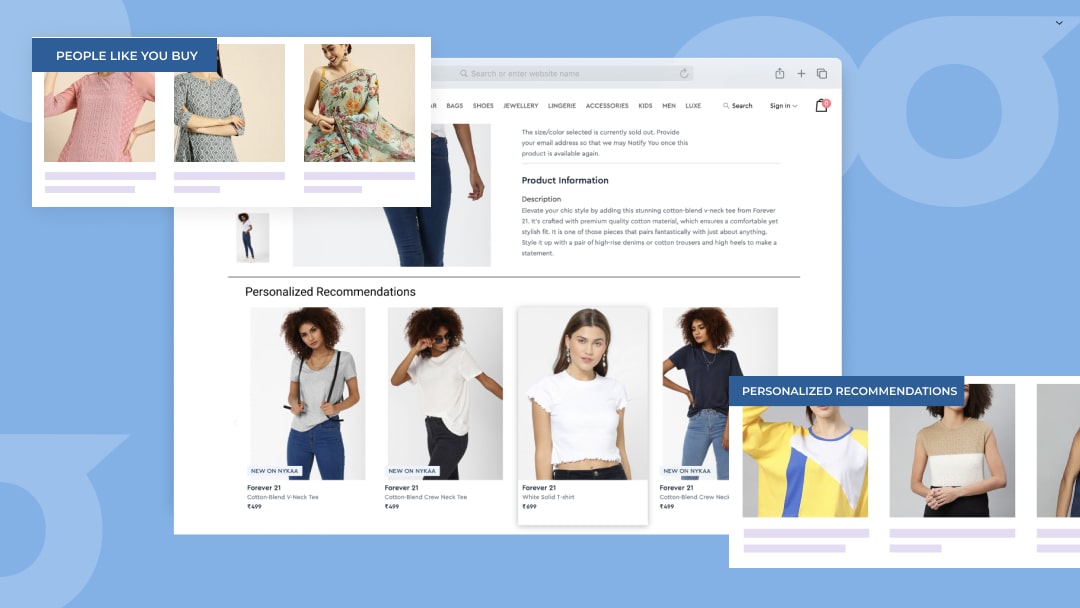
Data-driven personalization design uses user data to adjust visual experiences and is becoming a defining 2026 design style. Interfaces can change layout, recommendations, or content emphasis based on browsing behavior and preferences. This helps users find relevant information faster while increasing engagement.